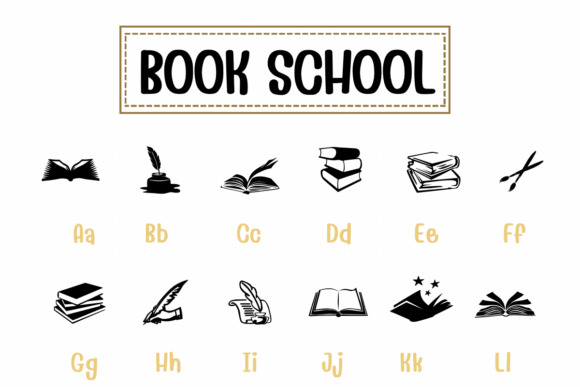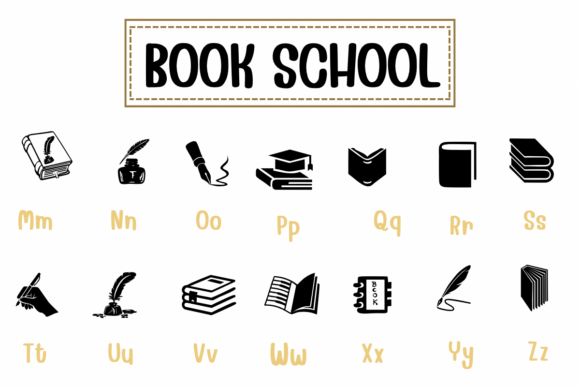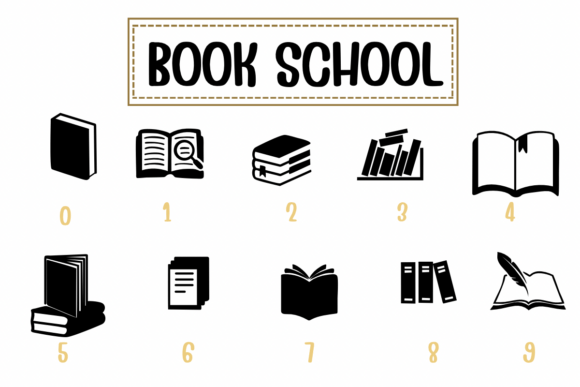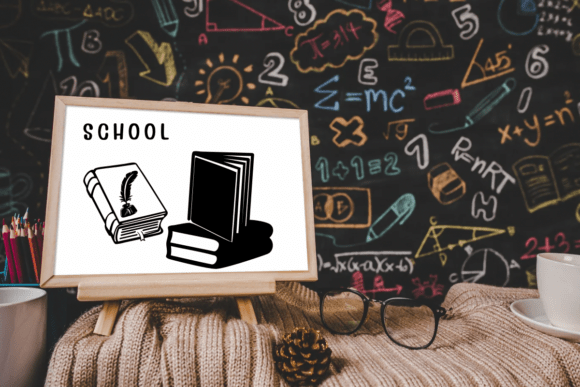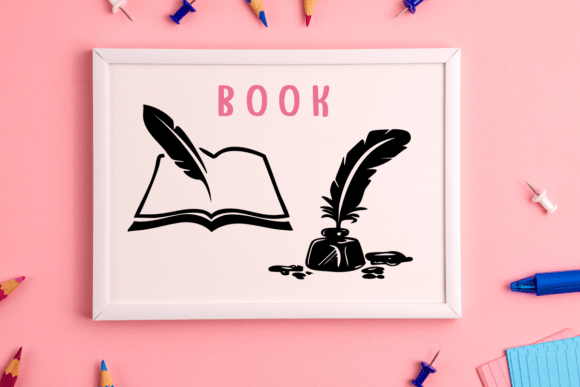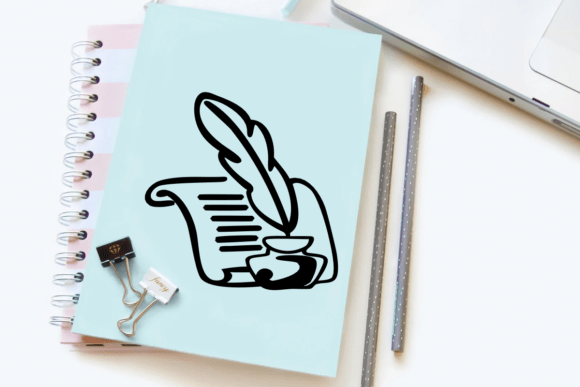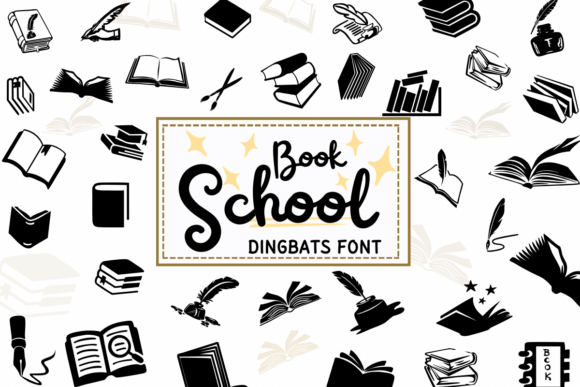
Introducing Book School Font: Elevate Your Creative Projects with a Sketched Theme
Are you a designer, crafter, or DIY enthusiast looking for a unique font to add a personal touch to your projects? Look no further than Book School Font, a charming dingbats font with a sketched theme. This versatile font is perfect for a wide range of creative applications, from wedding invitations and crafts to decorations, logos, and more.
What is Book School Font?
Book School Font is a dingbats font that features sketched illustrations, giving it a distinctive and artistic feel. The font is designed to add a touch of whimsy and elegance to your projects, making it ideal for crafters and designers who want to create something truly special. With its unique sketched theme, Book School Font is sure to set your projects apart from the rest.
Uses for Book School Font
The possibilities are endless when it comes to using Book School Font. Here are just a few ideas to get you started:
- Wedding Invitations: Add a touch of romance and elegance to your wedding invitations with Book School Font. Use it to create custom illustrations, decorations, and more.
- DIY Crafts: Book School Font is perfect for DIY crafters who want to add a personal touch to their projects. Use it to create custom labels, tags, and decorations for your crafts.
- Logos and Branding: Use Book School Font to create unique and memorable logos and branding materials for your business.
- Decorations: Add a touch of personality to your decorations with Book School Font. Use it to create custom signs, banners, and more.
Benefits of Using Book School Font
So why choose Book School Font for your creative projects? Here are just a few benefits:
- Unique and Versatile: Book School Font is a unique and versatile font that can be used in a wide range of creative applications.
- Elegant and Whimsical: The font’s sketched theme gives it an elegant and whimsical feel that’s perfect for adding a touch of personality to your projects.
- High-Quality: The font is high-quality and comes with a range of characters and symbols to help you create unique and interesting projects.
Tips for Using Book School Font
Here are a few tips for using Book School Font in your creative projects:
- Experiment with Different Sizes: Experiment with different font sizes to create visual interest and add emphasis to your projects.
- Combine with Other Fonts: Combine Book School Font with other fonts to create a unique and interesting look.
- Use for Headings and Titles: Use Book School Font for headings and titles to add a touch of personality and elegance to your projects.
Book School Font is a versatile and unique dingbats font with a sketched theme that’s perfect for designers, crafters, and DIY enthusiasts. With its elegant and whimsical feel, this font is sure to add a touch of personality to your creative projects. Whether you’re creating wedding invitations, DIY crafts, logos, or decorations, Book School Font is the perfect choice. So why wait? Download Book School Font today and start creating something truly special.